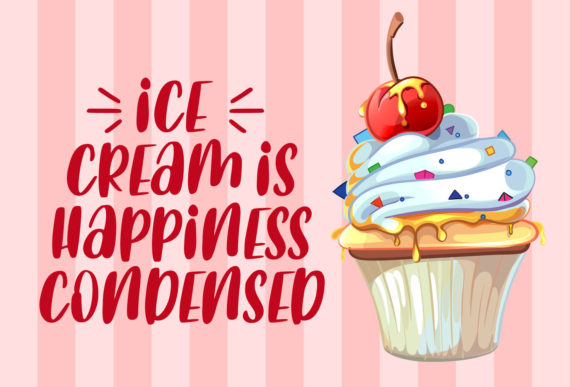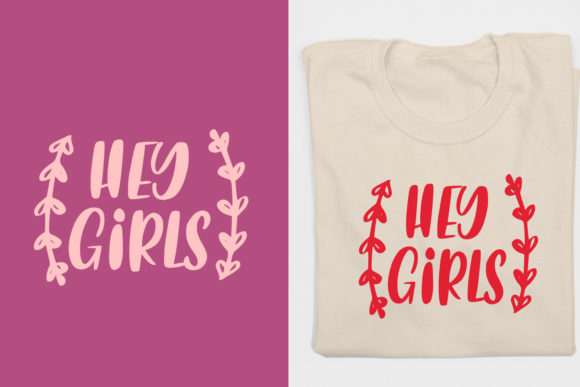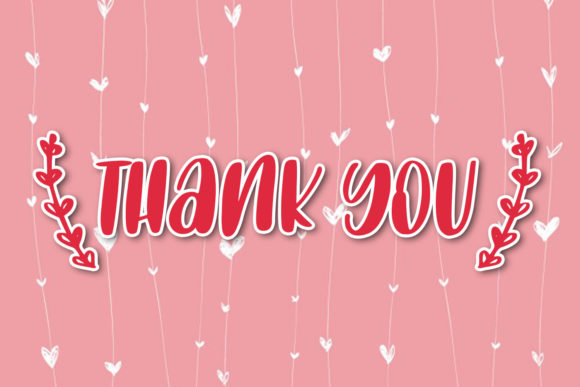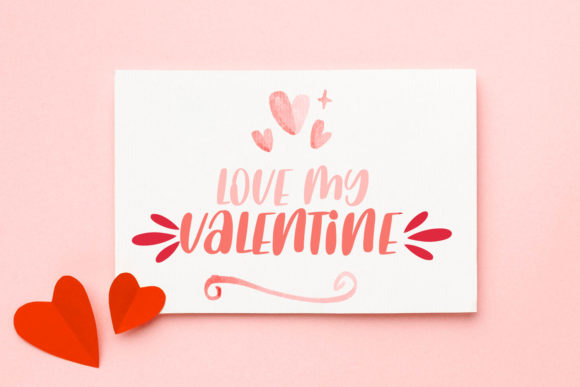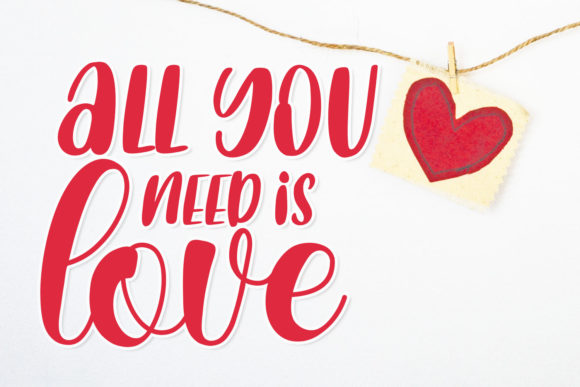
The Perfect Touch of Whimsy: Discovering Cute and Cake Font
Who hasn’t experienced that moment when inspiration strikes, and suddenly, a brilliant design idea pops into your head? You see it all in your mind’s eye – the colors, the layout, the typography – and you can’t wait to bring it to life. For designers, this is a familiar sensation, and one that can make all the difference between a good design and a great one.
Cute and Cake Font is a charming handwritten font that’s sure to add a touch of whimsy to your next project. Its playful, cursive script is full of life and personality, making it a wonderful choice for brightening up your designs. Whether you’re creating a wedding invitation, a children’s book, or a social media post, Cute and Cake Font is a valuable addition to your design toolkit.
Cute and Cake Font Key Features
- Font Size and Style: The font comes in 3 different font sizes (Regular, Bold, and Italic) and 3 different font weights (Light, Regular, and Bold) to cater to various design needs.
- Resolution: The font is designed to be scalable and legible at various resolutions, making it suitable for digital and print media.
- Unique Characteristics: The Cute and Cake Font features a playful, whimsical design with rounded edges and a soft, cursive feel, making it perfect for creating a child-friendly or feminine aesthetic.
- Language Support: The font supports a wide range of languages, including Latin, Cyrillic, and Greek scripts, making it a versatile choice for multilingual designs.
- Customization Options: The font can be easily customized using font editing software, allowing designers to create unique and personalized designs.
Cute and Cake Font Review
I recently had the chance to work with the Cute and Cake Font and here’s my honest take on it.
- The font is perfect for creating a playful and whimsical atmosphere in your designs. It’s great for baking-related businesses, kids’ products, or any other project that needs a touch of sweetness.
- The font is highly customizable, with a wide range of styles and sizes available. This makes it easy to adapt to different design needs and ensure consistency throughout your project.
- The font files are well-organized and easy to navigate, making it a breeze to find the perfect style for your design.
- The font may not be suitable for formal or professional designs, as it’s quite playful and cutesy. If you’re working on a project that requires a more serious tone, you may want to consider a different font.
- The font may not be as versatile as some other fonts on the market. While it’s great for baking-related designs, it may not be the best choice for other types of projects.
Overall, I think the Cute and Cake Font is a great choice for designers who need a playful and whimsical font for their projects. While it may have some limitations, it’s a high-quality font that’s easy to work with and customize. I’d definitely recommend it for designers who are looking for a fun and creative font option.
Tips for Getting the Most Out of Cute and Cake Font
Use Cute and Cake Font to add a playful touch to your designs, especially in food-related or children’s content. Experiment with different text combinations and color schemes to create visually appealing effects.
Cute and Cake Font is ideal for:
- Food blogs and recipes
- Playful social media posts and graphics